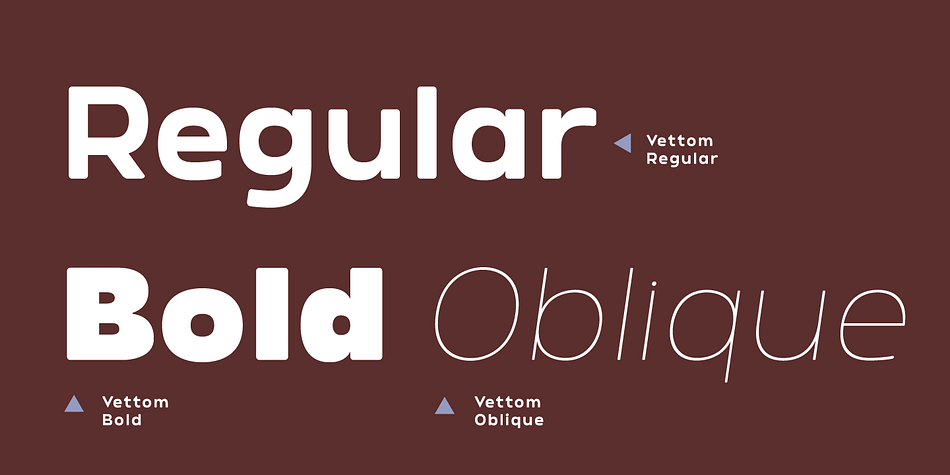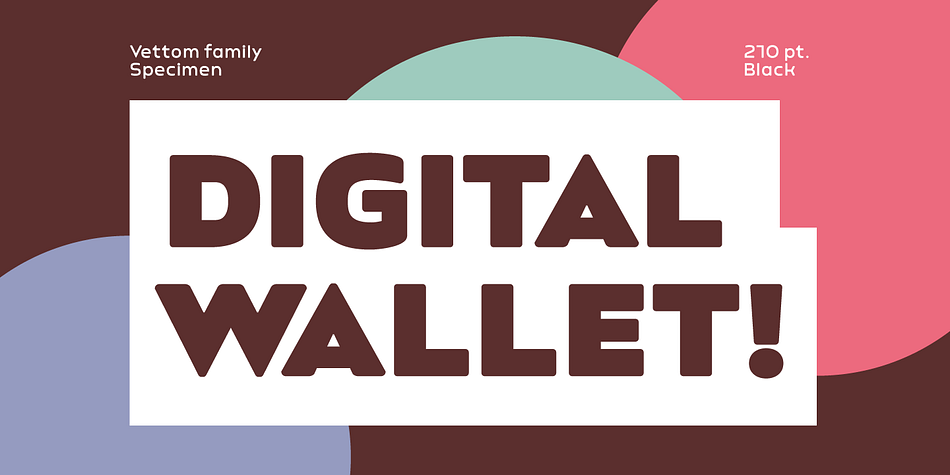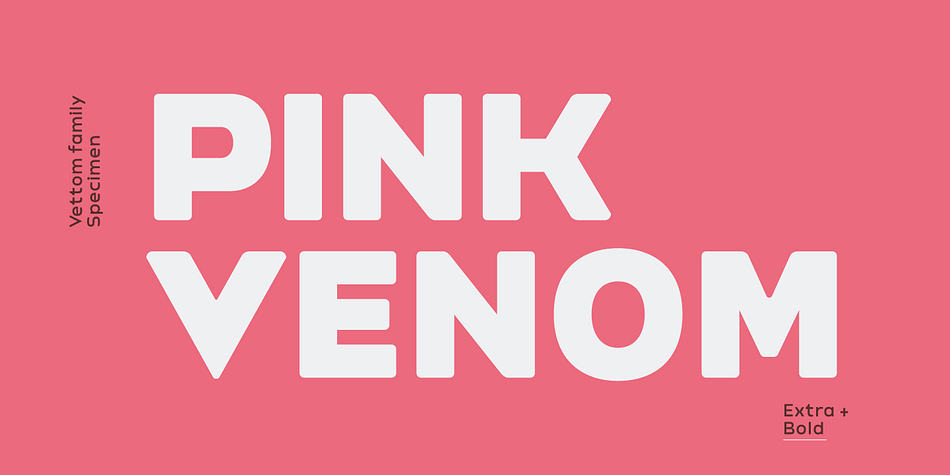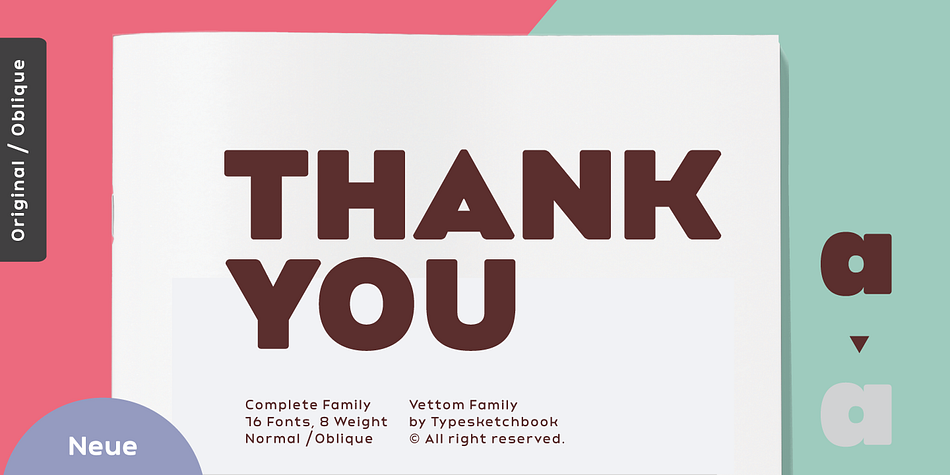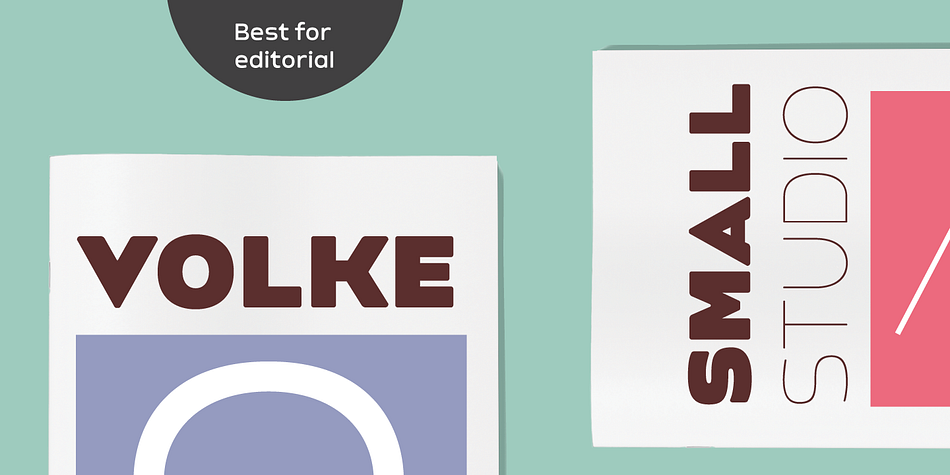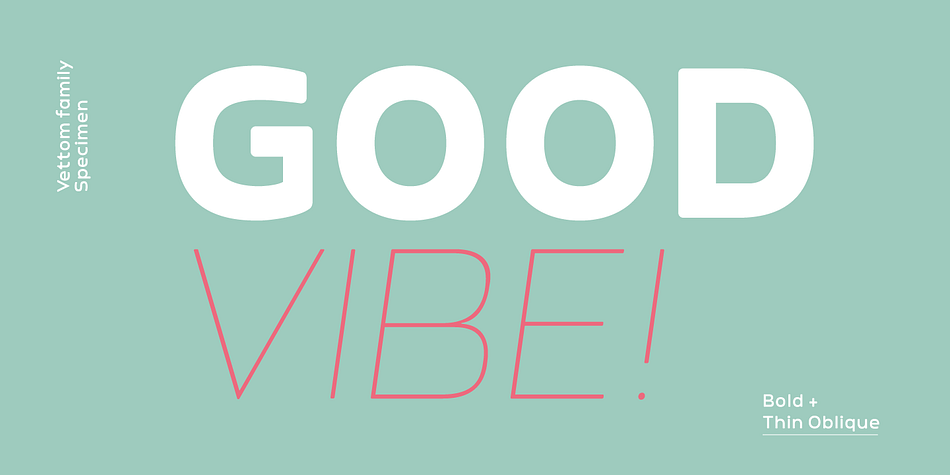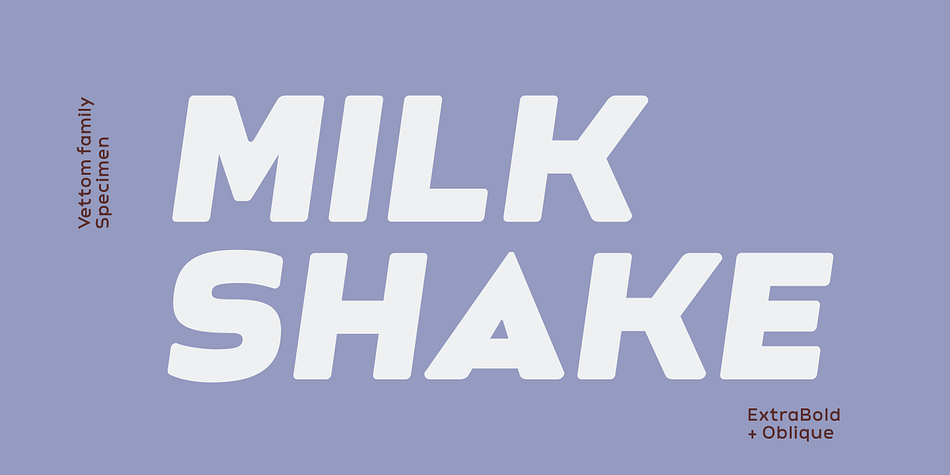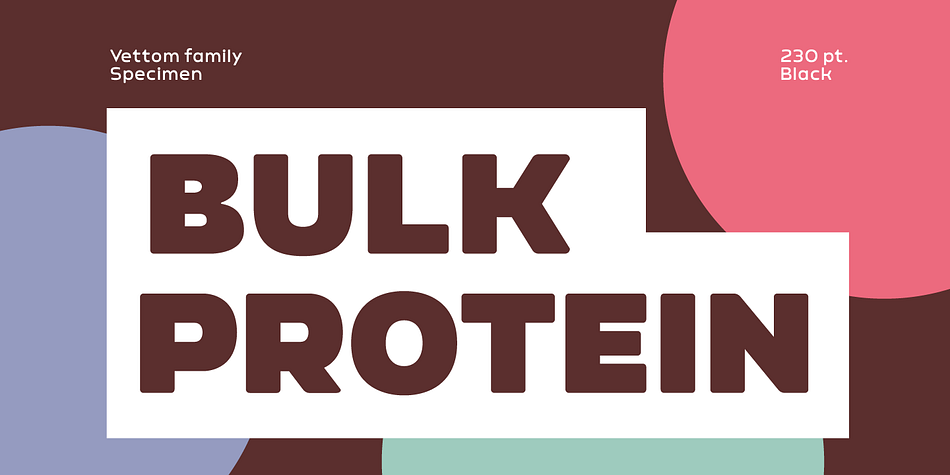
Vettom
Designed by Chatnarong Jingsuphatada, Vettom is a sans serif font family. This typeface has sixteen styles and was published by Typesketchbook.
Vettom is a rounded-geometric typeface made up of 16 fonts across 8 weights. It’s a unique and modern sans typeface, which is well suited for a variety of typographic applications such as headlines and small texts. The Vettom font family supports multiple languages and is available as both webfont and desktop font.